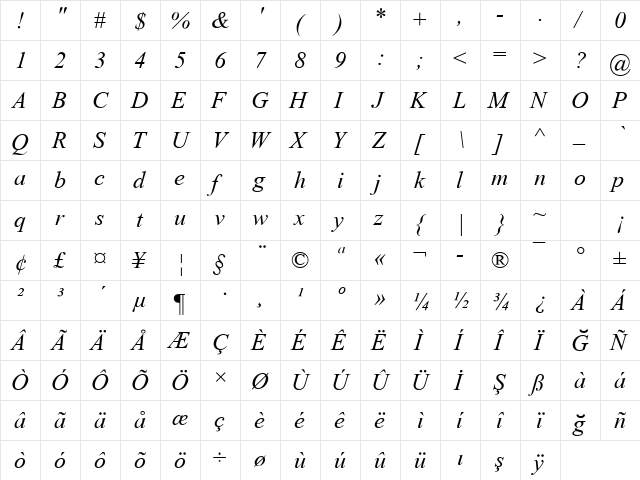
Turkish Times New Roman Italic
Design Context for Turkish Times New Roman Typeface
Turkish Times New Roman is a composed and adaptable typeface that performs quietly and consistently across a wide range of design contexts. Its italic angle brings a sense of urgency and motion to the letterforms.
Pro Tip: Use Turkish Times New Roman for emphasis, pull quotes, and subheadings where its slanted energy can add rhythm to the layout.